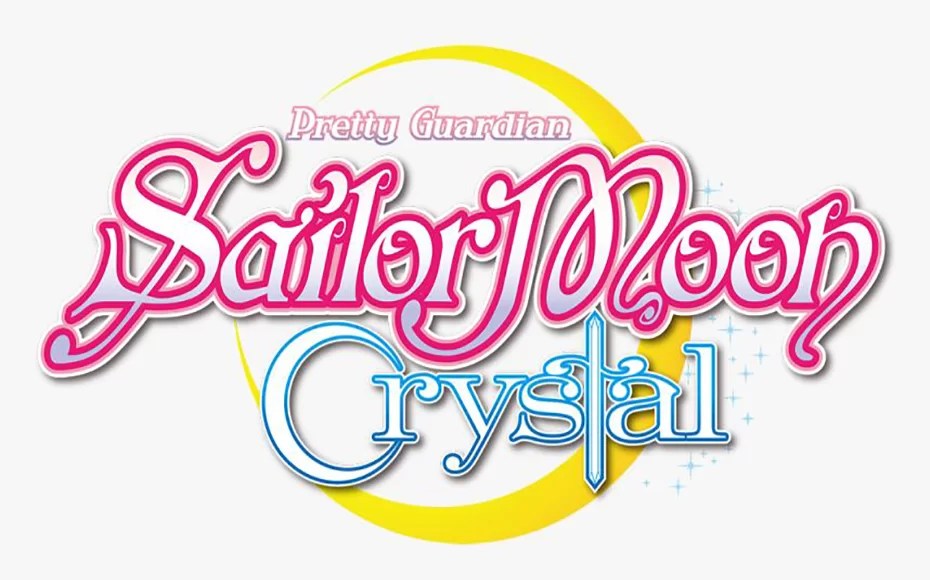
Awasome Sailor Moon Fonts References
Awasome Sailor Moon Fonts References. Download more than 10,000 free fonts hassle free, desktop and mobile optimized, around for more than 20 years. The sailor moon is basically a japanese shōjo manga series serialized from 1991 to 1997.
It was written and illustrated by a female artist naoko takeuchi. The sailor moon is primarily a japanese shōjo. Added sailor moon font specimen.
Sailor Moon Font Free Download Posted In Logo, Display, Movie Today We Are Presenting A New Font Family Called The Sailor Moon Font!
Sailor Moon Font Free Download Table Of Contents Show Sailor Moon Font Is A Typeface Designed By Tadano Kazuko.
It was written and illustrated by a female artist naoko takeuchi. Click to find the best 22 free fonts in the sailor style. It was first published between.
The Word “Sailor Moon” Is Very.
Sailor moon fonts are the fonts used in the sailor moon. A stretched version of big caslon was used for the japanese sailor moon box sets. Sailor moon font download, sailor moon lightsaber font, original sailor moon font, sailor moon font free download,
Added Sailor Moon Font Specimen.